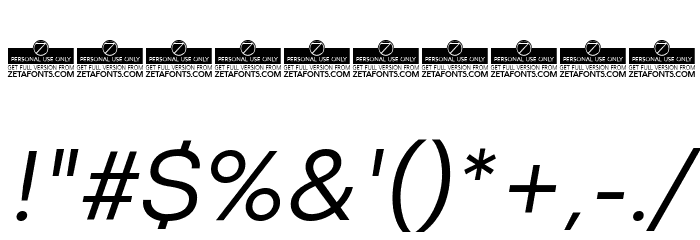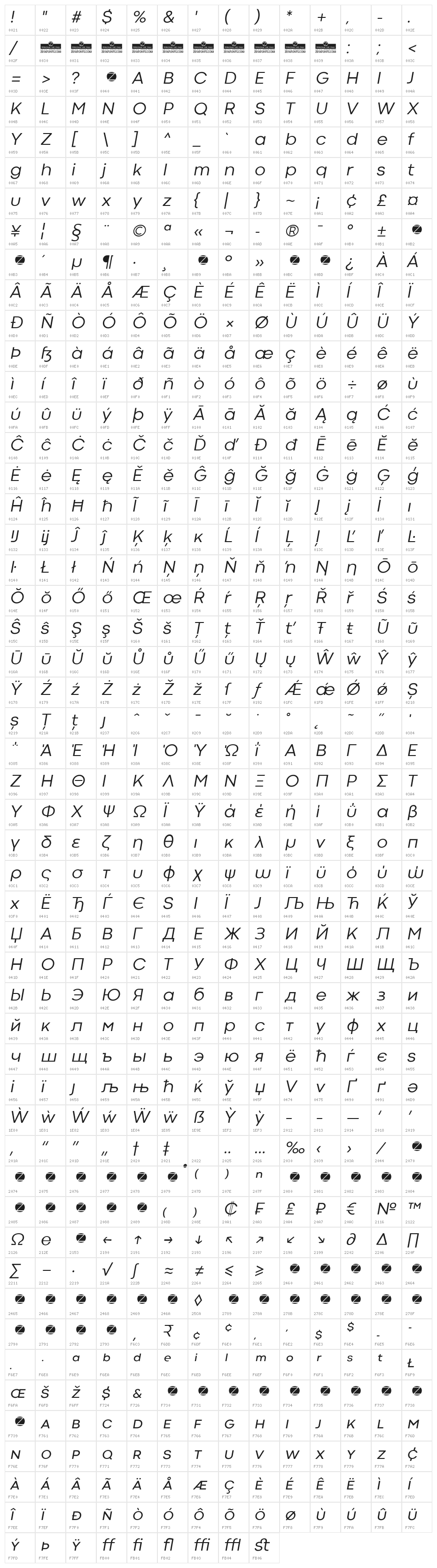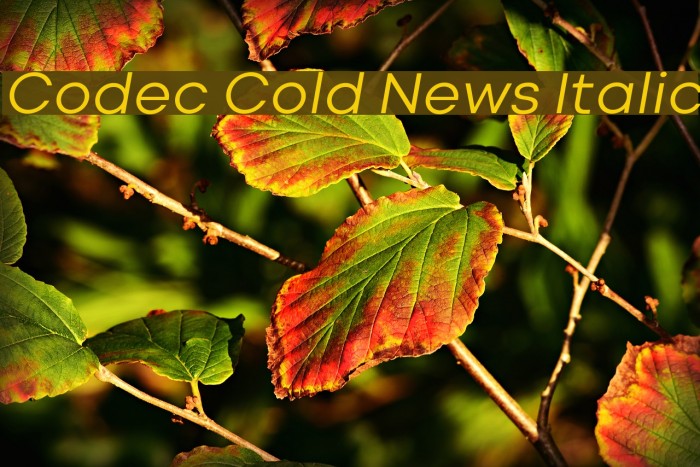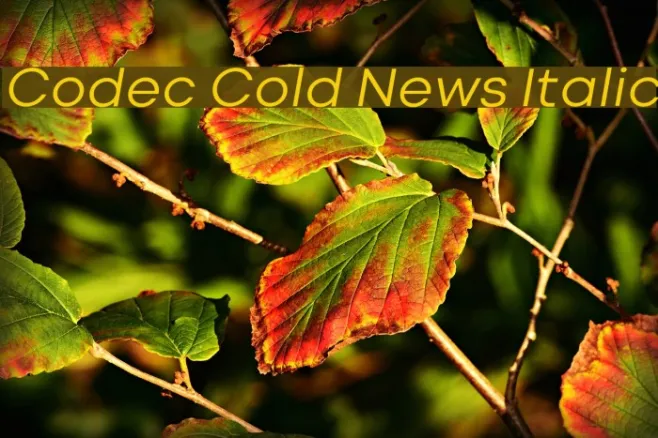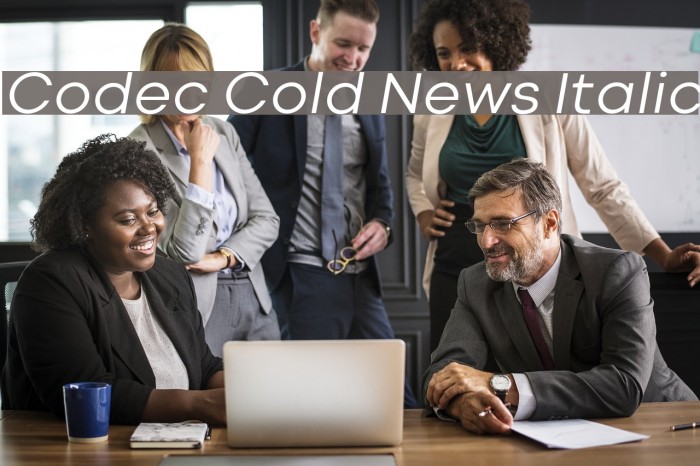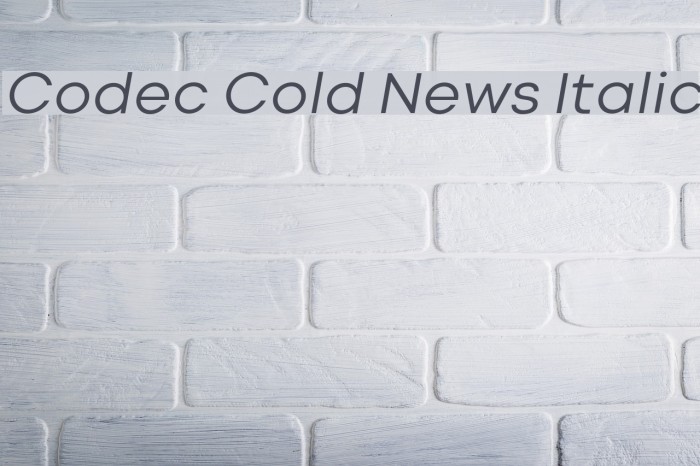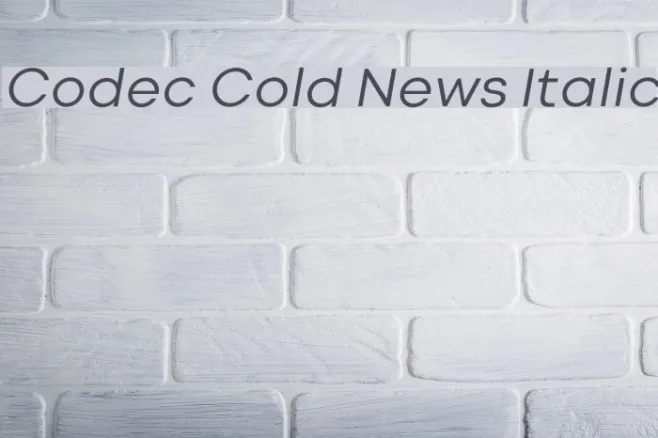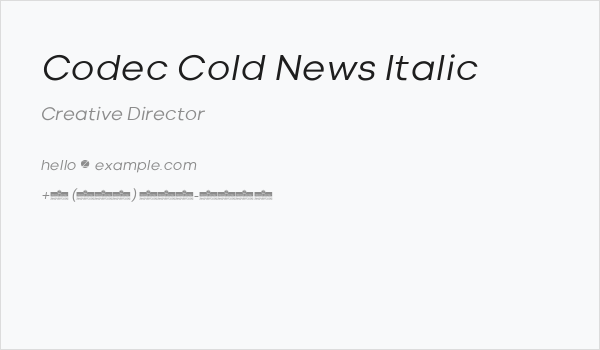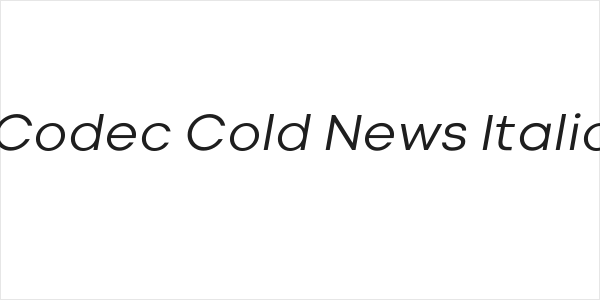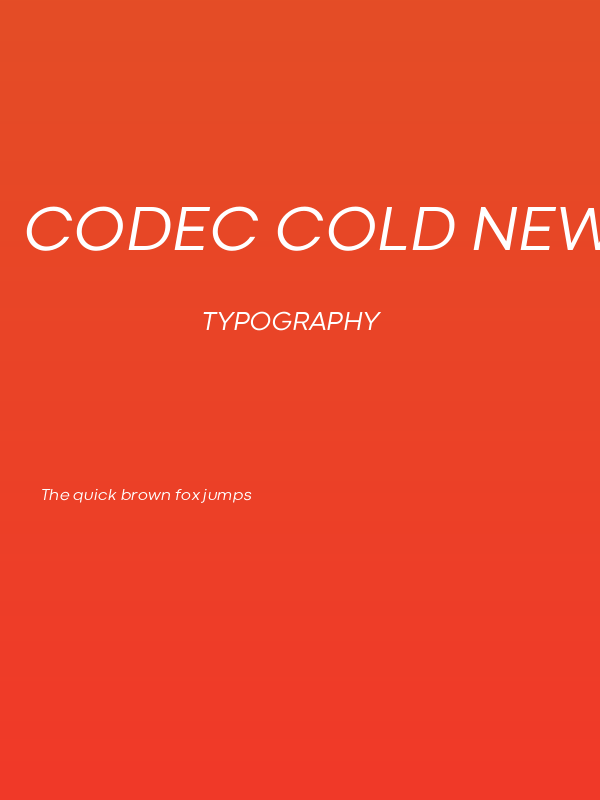
Codec Cold News Italic Font
Codec Cold News Italic Description
This font features a sleek and modern design with a slight italic slant, giving it a dynamic and contemporary feel. The characters are clean and streamlined, with smooth curves and a consistent stroke width that enhances readability. The uppercase and lowercase letters maintain a uniform style, while the numerals and special characters are designed to complement the overall aesthetic. This font's simplicity and elegance make it versatile for various design applications.
| Proposed Projects | Ideal for use in modern branding, editorial design, digital interfaces, and advertising campaigns. |